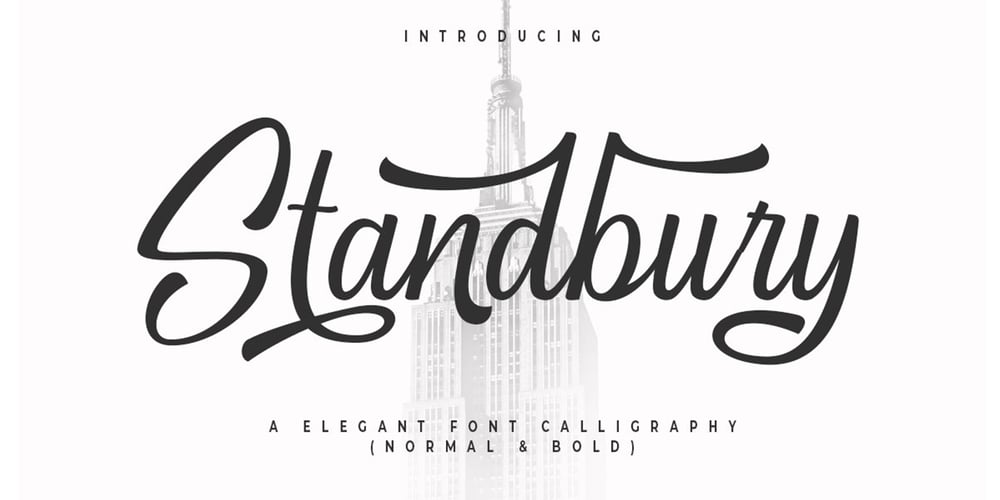
Standbury Script Font Family was designed by Kurniadi Saputra and published by Cooldesignlab. Standbury Script contains 2 styles and family package options. Standbury – a calligraphy font consisting of 2 versions (Normal and Thick) that is designed very skilfully and thoroughly so that they can be combined.This font is perfect for wedding postcards. Or you can create logos, blogs, stationery, marketing, magazines, invitations, models, branding cards and other designs that are perfect and unique :)Standbury includes a complete set of large international letters, numbers, punctuation marks and binders. All lowercase letters include the beginning and end of the attack. Also, follow the multilingual symbols. The script is coded with Unicode PUA, which allows full access to all additional characters without special design software.Mac users can use Font Book, and Windows users can use Character Maps to view and copy additional characters to be included in your favorite text editor / application.Thank you and have a nice day.CooldesignLab